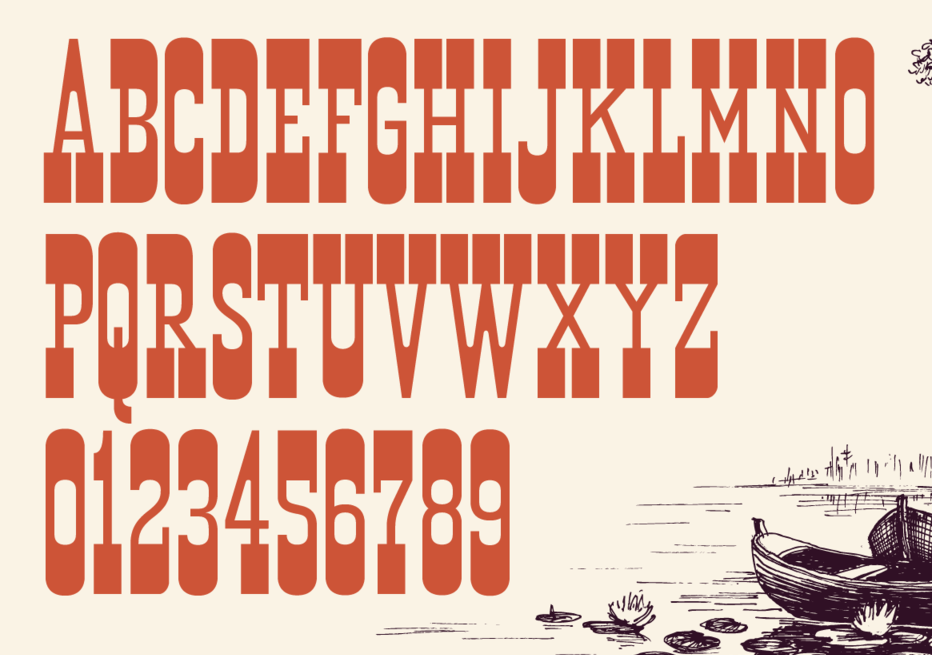
Black Lab Type [Kenny Li]
Toronto, Canada-based designer of BLT Balfour (2019: art deco), Dozen (2019: a donut bakery font), BLT Heirloom (2019: rounded informal sans), BLT Portage (2019: a reverse stress Western font), BLT Gerhard (2019, a Victorian headline typeface) and BLT Norfolk (2019, a vintage-inspired font based on the styles found on packaging from the early 1900's).